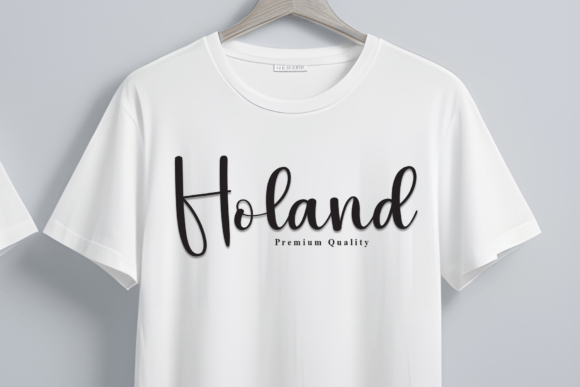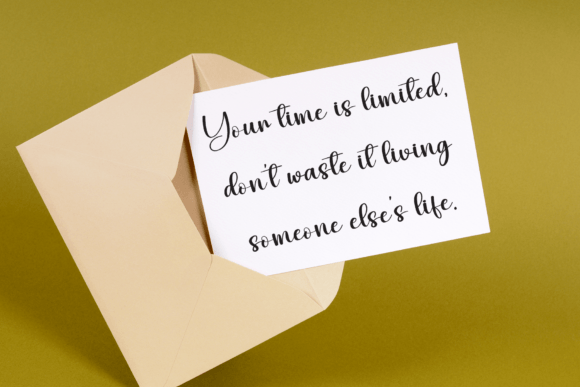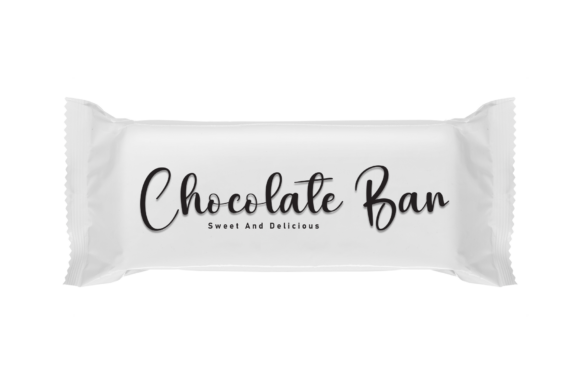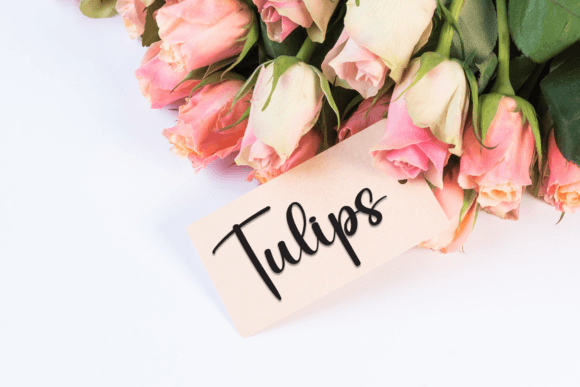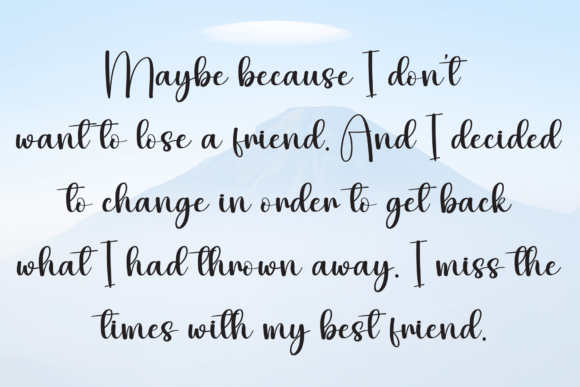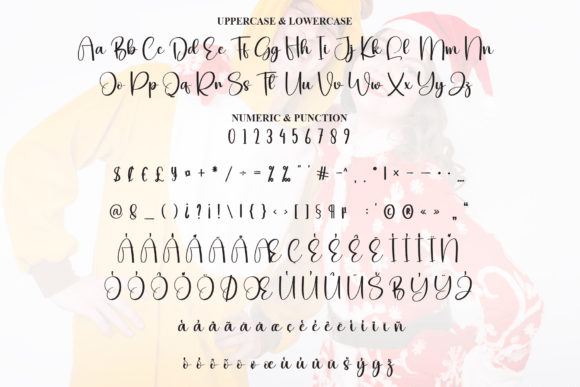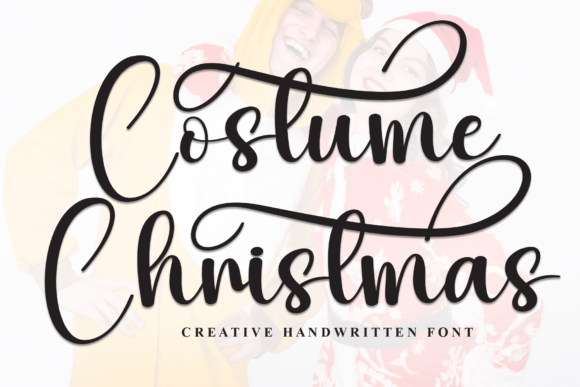
Introducing Custom Christmas Font: A Handwritten Script for Festive Designs
Are you looking for a unique and creative way to add a personal touch to your Christmas designs? Look no further than the Custom Christmas font, a beautiful script handwritten font that exudes warmth and elegance. With its smooth, flowing style and connected letters, this font is perfect for designers and crafters who want to create festive and eye-catching designs.
What is Custom Christmas Font?
Custom Christmas is a script handwritten font that features elegant, connected letters that give a personal, casual feel. This font is designed to add a touch of warmth and creativity to any design, making it perfect for Christmas-themed projects, holiday cards, and festive decorations. The smooth, flowing style of the font creates a sense of movement and fluidity, making it ideal for designs that require a touch of elegance and sophistication.
Key Features of Custom Christmas Font
- Smooth and Flowing Style: The Custom Christmas font features a smooth and flowing style that creates a sense of movement and fluidity.
- Elegant and Connected Letters: The font features elegant and connected letters that give a personal, casual feel.
- Perfect for Festive Designs: The Custom Christmas font is perfect for Christmas-themed projects, holiday cards, and festive decorations.
- Handwritten Script: The font is a handwritten script, making it unique and creative.
Why Use Custom Christmas Font?
There are many reasons why designers and crafters should consider using the Custom Christmas font in their designs. Here are a few:
- Add a Personal Touch: The Custom Christmas font adds a personal touch to any design, making it perfect for holiday cards, festive decorations, and Christmas-themed projects.
- Stand Out from the Crowd: The unique and creative style of the font makes it stand out from the crowd, ensuring that your designs are noticed and remembered.
- Versatile: The Custom Christmas font is versatile and can be used in a variety of designs, from holiday cards to festive decorations.
How to Use Custom Christmas Font?
Using the Custom Christmas font is easy and straightforward. Here are a few tips:
- Pair with Other Fonts: Pair the Custom Christmas font with other fonts to create a unique and creative design.
- Use in Digital Designs: Use the font in digital designs, such as holiday cards, social media graphics, and festive decorations.
- Experiment with Colors: Experiment with different colors to find the perfect combination that matches your design.
- Use in Crafting Projects: Use the font in crafting projects, such as handmade cards, gift tags, and festive decorations.
The Custom Christmas font is a beautiful and creative script handwritten font that is perfect for designers and crafters who want to add a personal touch to their Christmas designs. With its smooth, flowing style and connected letters, this font is ideal for festive and eye-catching designs. Whether you’re creating holiday cards, festive decorations, or Christmas-themed projects, the Custom Christmas font is a great choice.